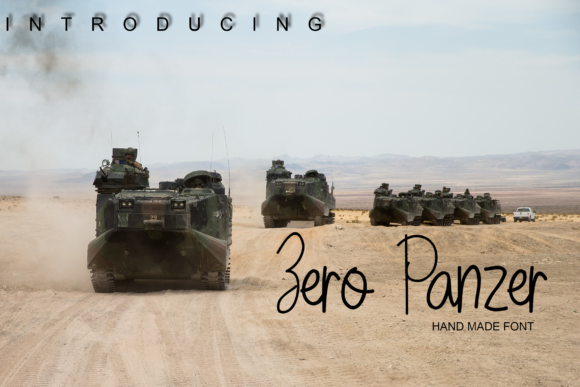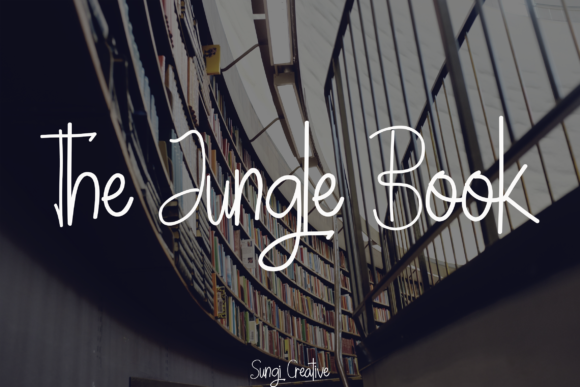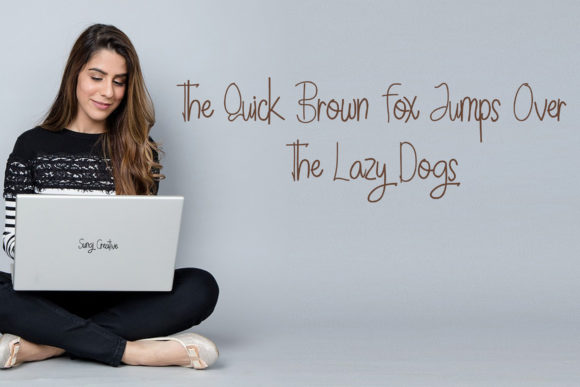
HomePersonal Use FreeZero Panzer Personal Use Free Zero Panzer FacebookTwitterPinterestWhatsApp 1 of 5 About Zero Panzer Font Zero Panzer font is a handwritten script. Get inspired by its authentic and playful charm! DOWNLOAD NOW People also explored Atlanta Font Bricks Wall Font Wanderlove Font Dream Town Font Camper Quotes Font Write Now Autumn Season Calendar 2024 3 Month Uniqueen Medium Font Poco Poco Font 165 0 TagsZero Panzer Font Previous articleCloudy NightNext articleAlligator Font LEAVE A REPLY Cancel reply Comment: Please enter your comment! Name:* Please enter your name here Email:* You have entered an incorrect email address! Please enter your email address here Website: Save my name, email, and website in this browser for the next time I comment. Personal Use Free Open Store Personal Use Free Read more about this font Love Memories Personal Use Free Read more about this font Green Farmhouse Personal Use Free Read more about this font Evelyne Personal Use Free Read more about this font BLOG The 10 Best Handwriting Fonts to Add Personality to Your Designs 10 of the Best Handwriting Fonts for Adding Personality to Your Designs There will undoubtedly be no other better choice than handwriting fonts to give... Using Fonts in Digital Marketing: Tips to Strengthen Your Brand Identity Exploring Font Trends Best Fonts for YouTube Videos: Make Your Thumbnails Stand Out